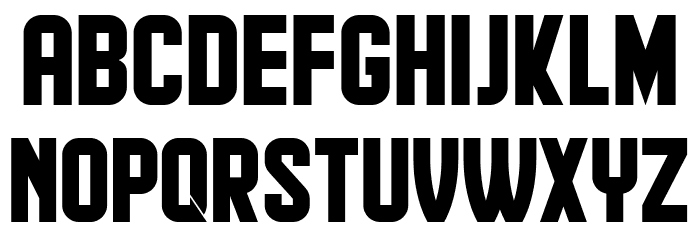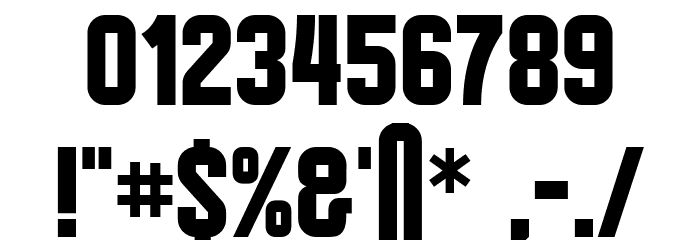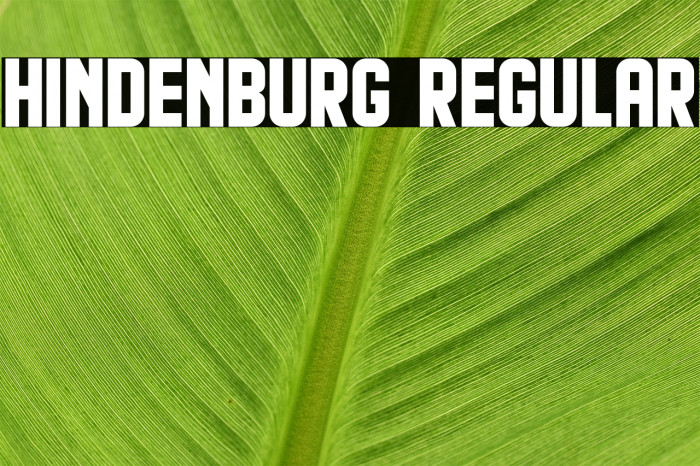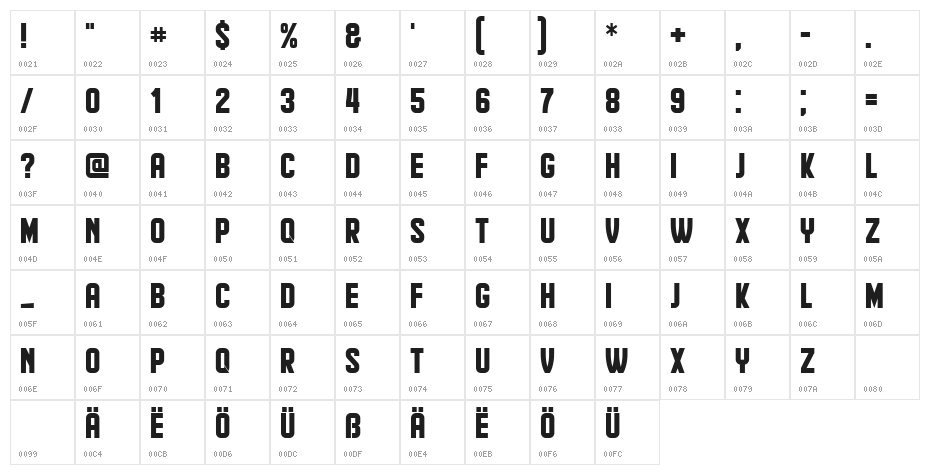
Hindenburg Regular Font
This font features a bold and impactful design with strong geometric shapes and a uniform stroke width. The characters are tightly spaced, creating a compact and cohesive appearance. Its uppercase letters are particularly striking, with a modern and industrial feel. The numbers and special characters maintain the same boldness and clarity, ensuring consistency across all elements. This font is ideal for making a statement, with its high legibility and strong presence.
- Proposed Projects: Ideal for branding, posters, headlines, and any project requiring a strong visual impact.
- Character Spacing: Tight